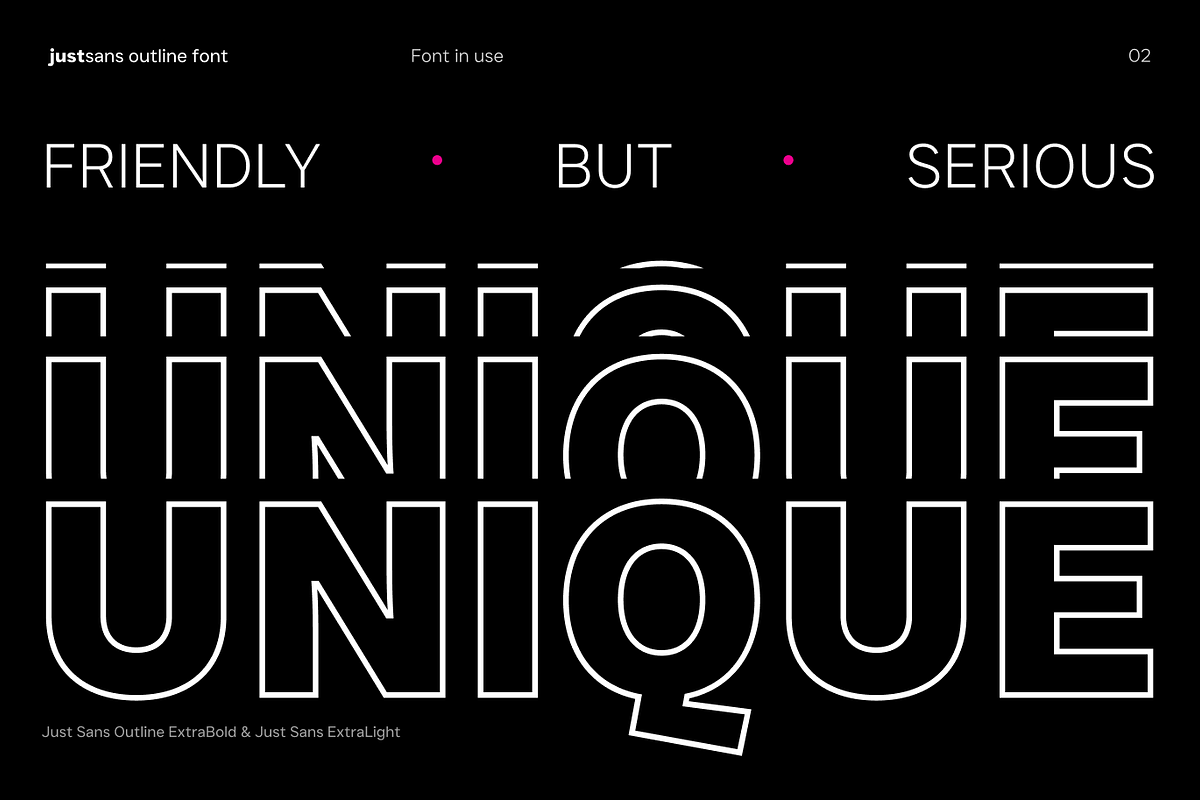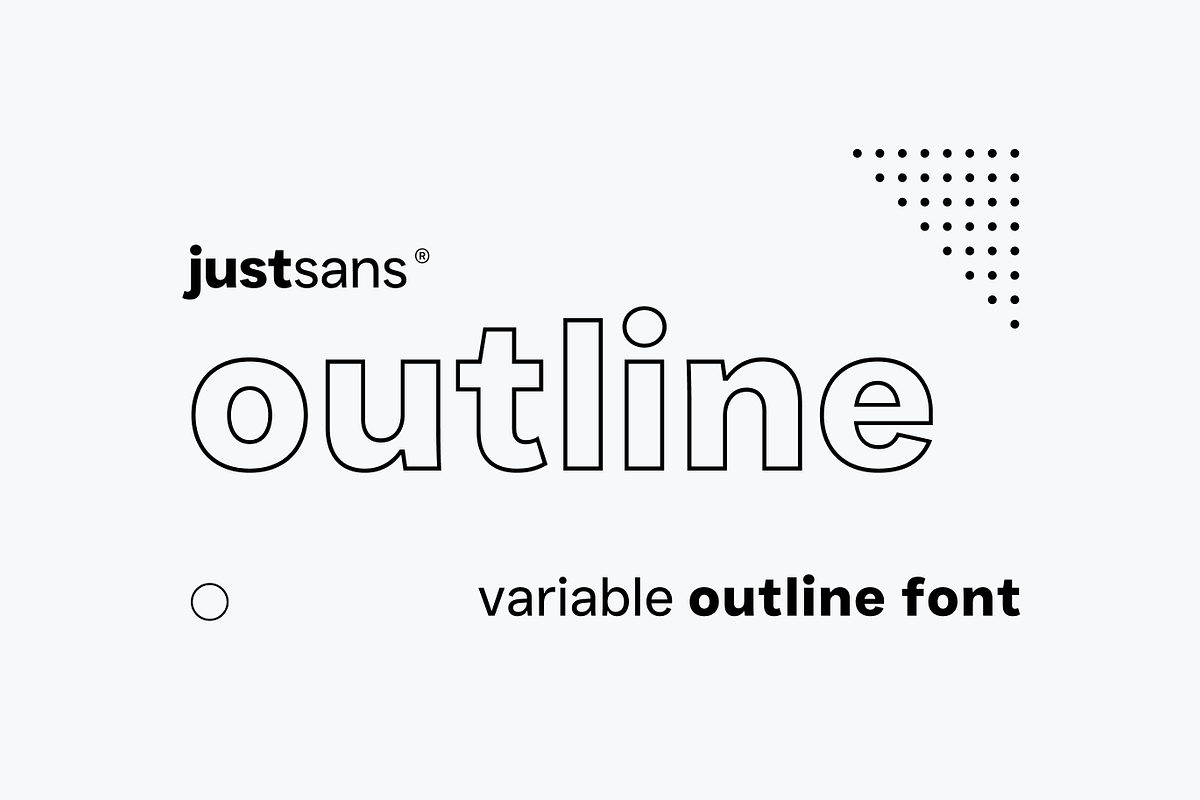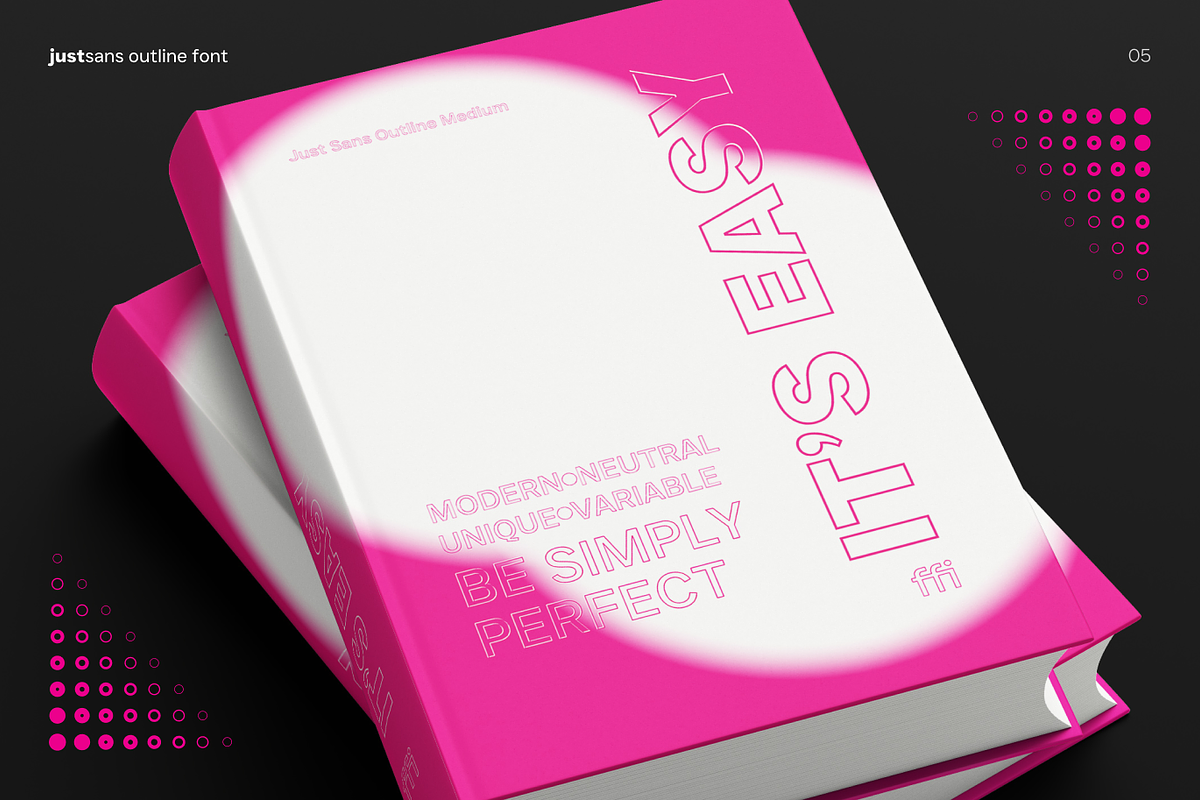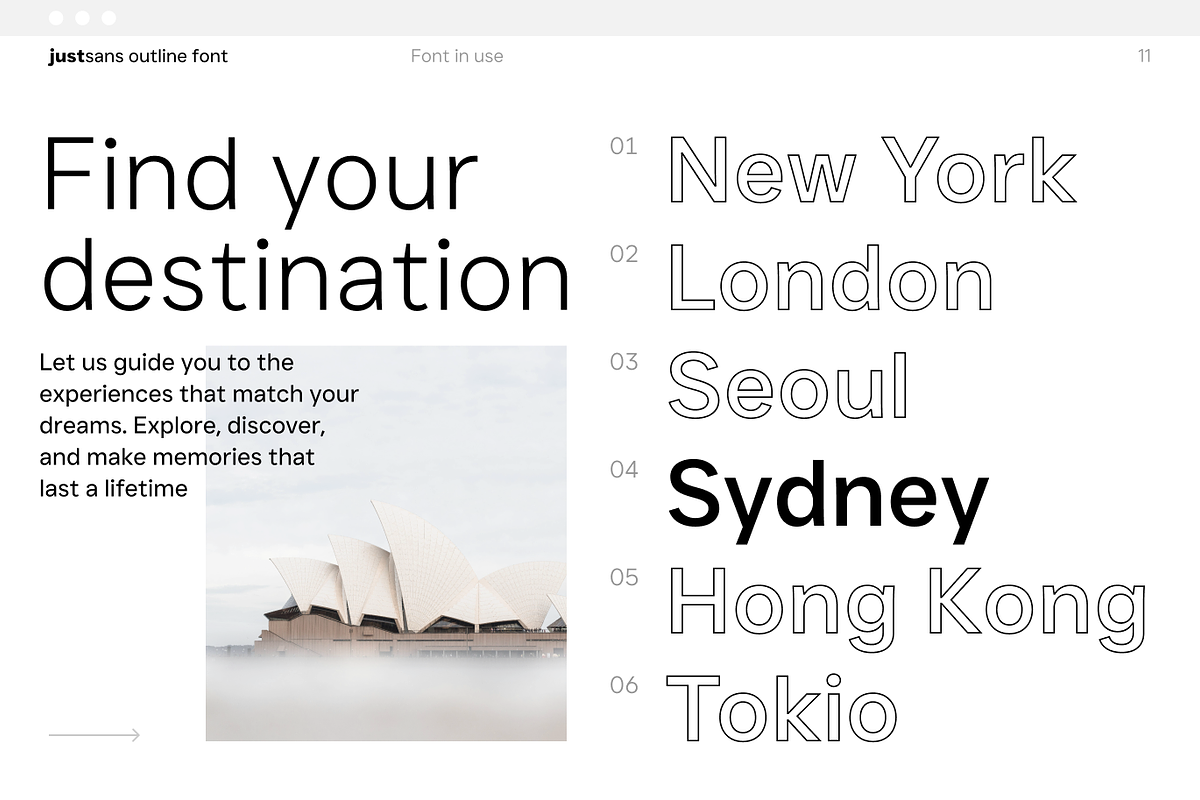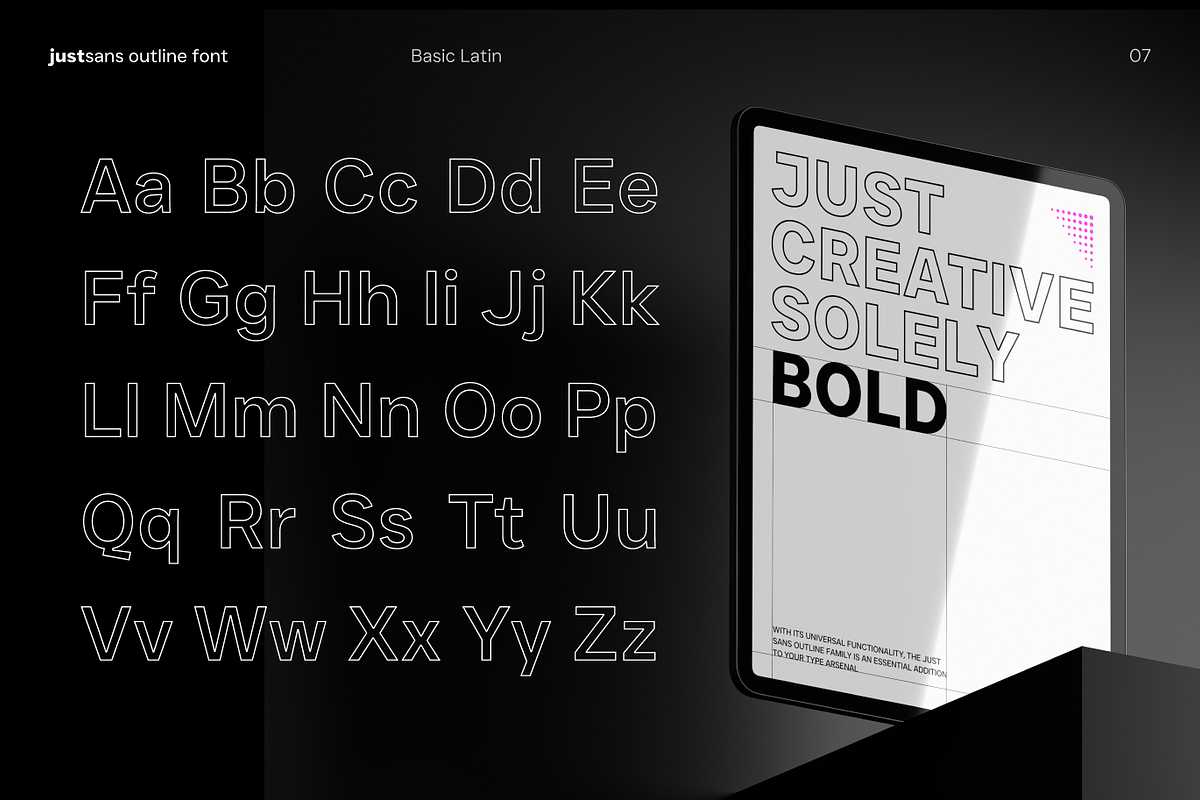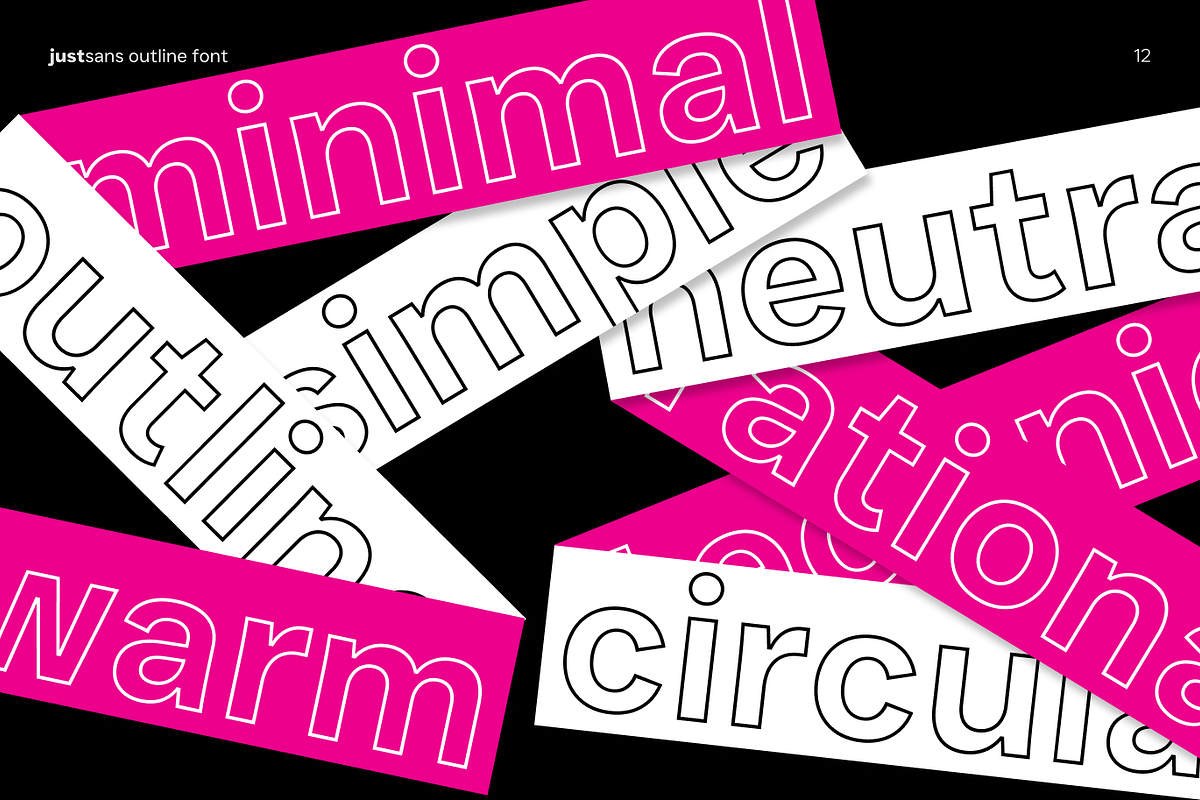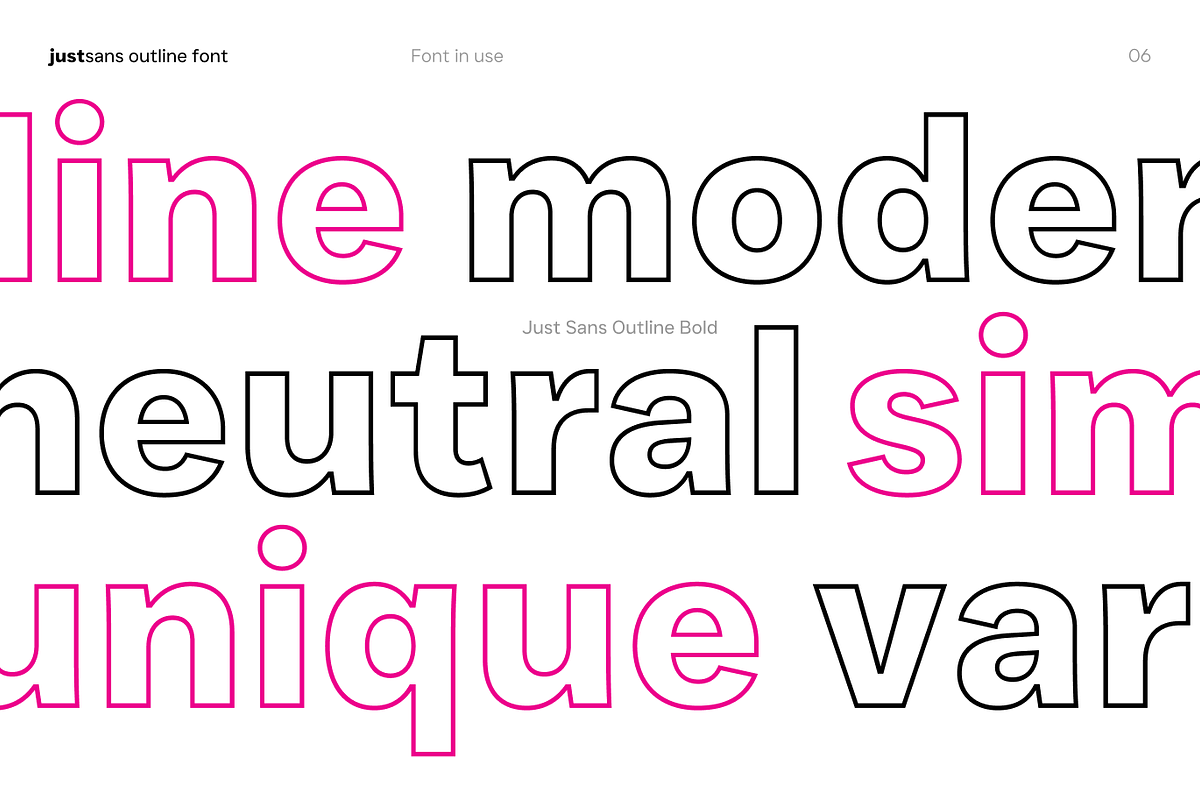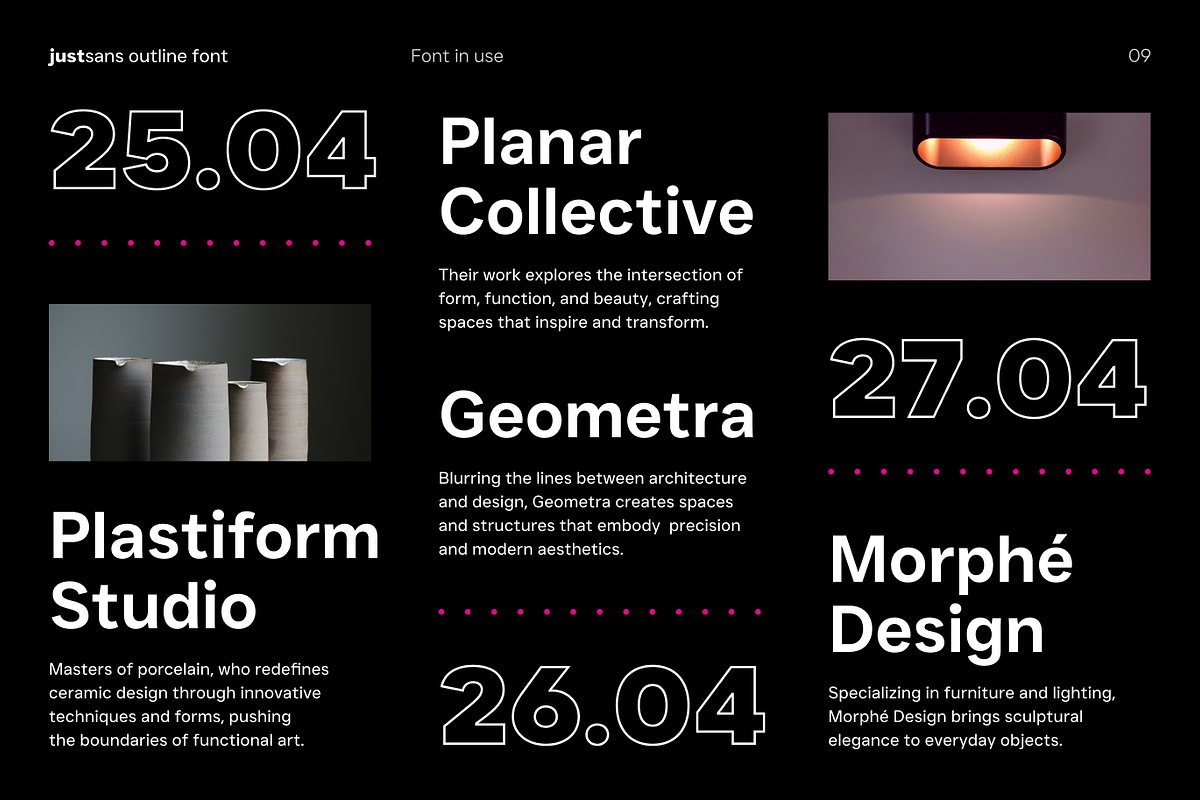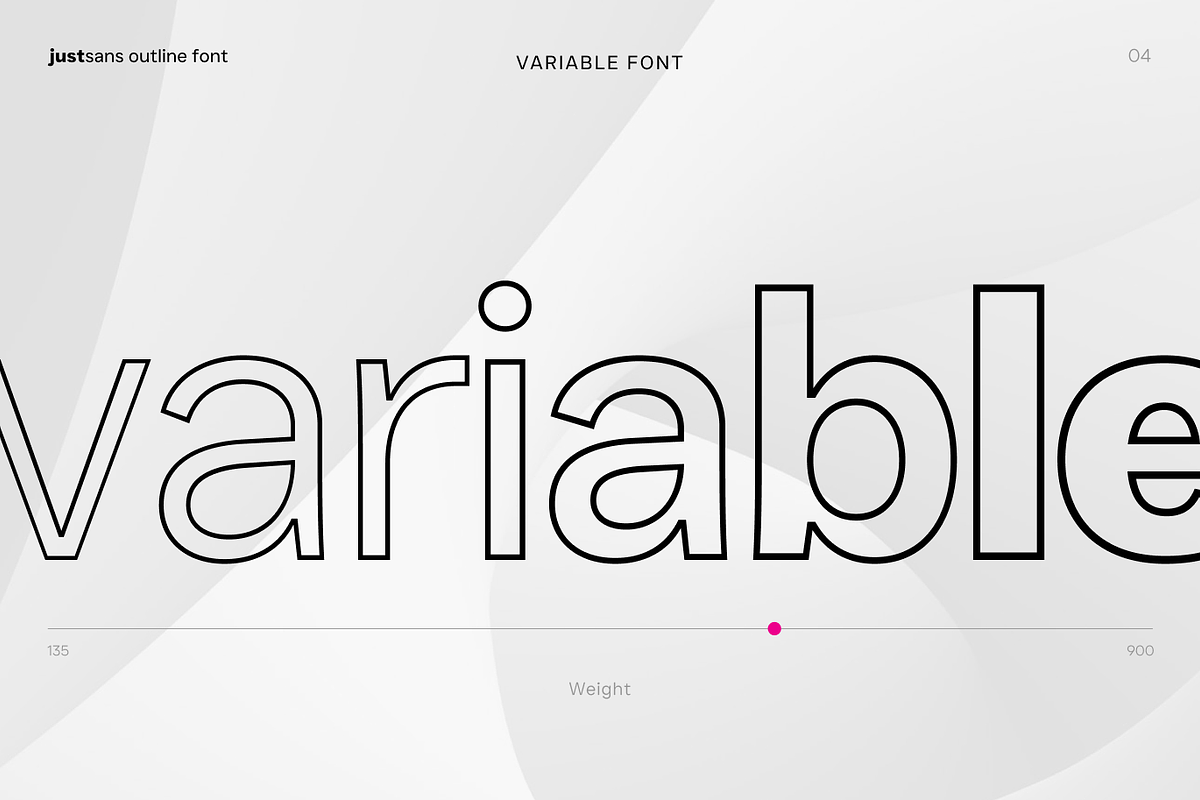
JUST Sans OUTLINE - Font Family
JUST Sans® Outline – Clean, Dimensional Display Font Family
JUST Sans Outline is the perfect companion to the best-selling sans-serif JUST Sans, adding depth, contrast, and dimension while retaining the clean, modernist warmth of the original.
Designed to be used alongside JUST Sans or standalone, it provides a striking way to create bold, expressive typography with greater creative flexibility.
With its precisely balanced negative and positive space, JUST Sans Outline delivers crisp definition and structured elegance, making text pop off the page.
Retaining the open, geometric foundation and signature sharp terminals of JUST Sans, it introduces a refined, linear aesthetic—perfect for logos, branding, packaging, UI/UX, signage, and high-contrast headlines.
Why Use JUST Sans Outline?
- The perfect balance of professional and expressive – Clean, minimal, yet expressive.
- Seamlessly pairs with JUST Sans – Combine solid and outline styles for striking contrast and depth.
- Designed for high-impact typography – Ideal for logos, headlines, display text, and modern brand identities.
- Eliminates manual outlining – Get flawless contour letterforms without spacing issues or tedious adjustments.
- 7 Outline Styles – Light, Extra Light, Regular, Medium, Semi Bold, Bold, Extra Bold
- BONUS Variable Font – Fully adjustable weight for maximum versatility
The Essential Addition to Your Type Toolkit
JUST Sans Outline isn’t just another hollow sans—it’s a simple, modern, minimal, wireframe-inspired, stroke-based, geometric, grotesk, linear typeface that enhances dimension, structure, and contrast. Whether you’re designing for branding, logos, display typography, web, or functional layouts, this decorative, clean, elegant, and friendly engraved-style, high-contrast, inline, stencil, bordered, open, transparent, dimensional sans-serif ensures your typography remains bold, neutral, and effortlessly versatile.
Elevate Your Typography
Pairing JUST Sans with JUST Sans Outline allows for seamless layering, effortless hierarchy, and striking visual depth—a must-have combination for designers looking to create typography with impact and precision.